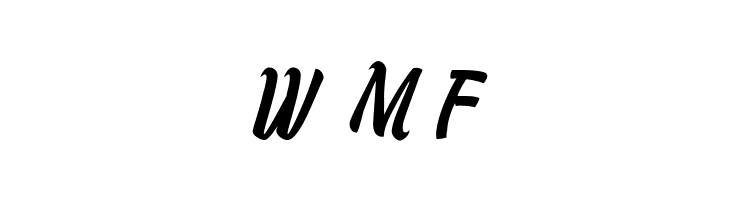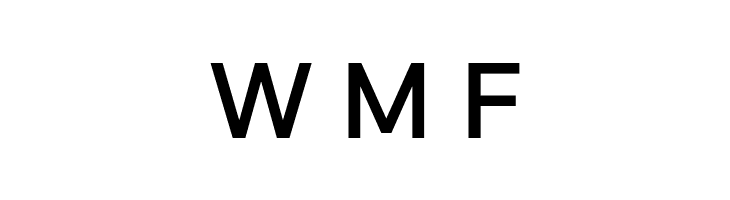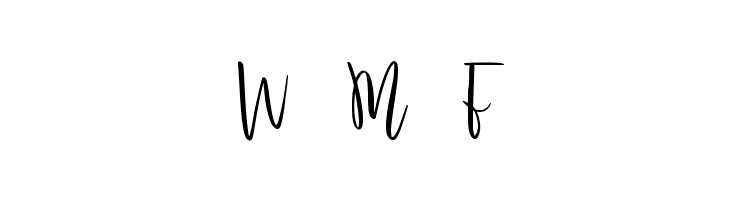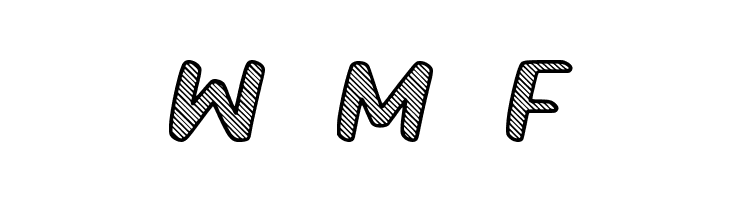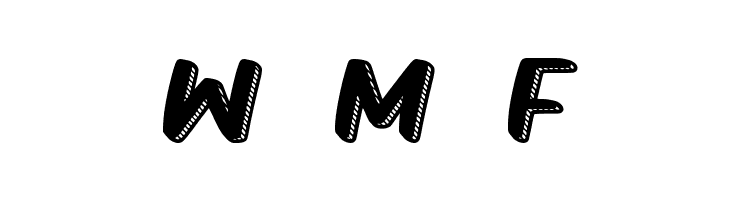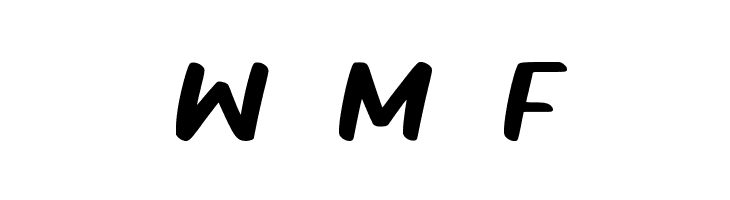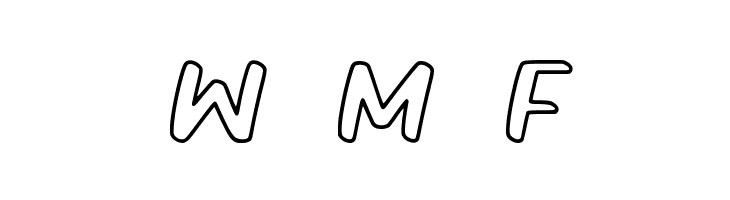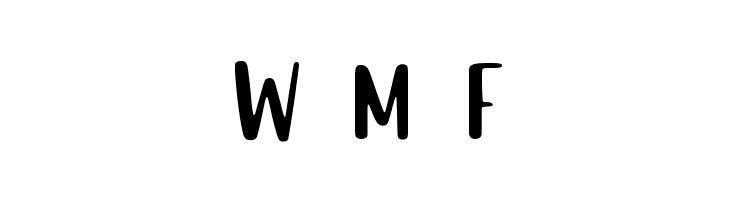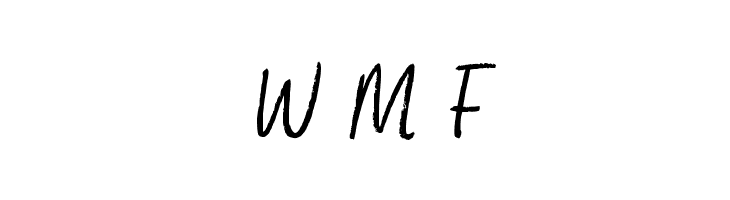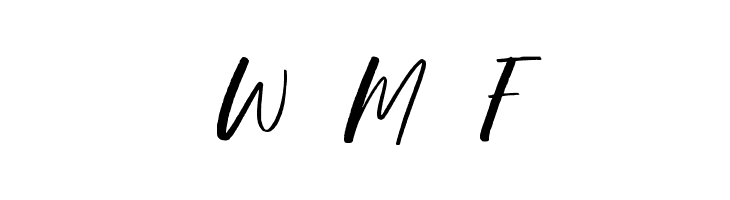
An elegant calligraphy font with flowing, interconnected strokes and ornate flourishes.
An elegant, cursive font with flowing, intricate strokes.
A bold, playful font with chunky, rounded characters.
A decorative and elegant script font with flowing, intricate letterforms.
A bold, angular font with a geometric and modern design.
A playful, decorative font with floral cutouts and bold, rounded characters.
A bold, dynamic script font with a strong, energetic presence.
A playful, handwritten font with flowing, cursive-like strokes and a modern aesthetic.
A playful, bold script font with a hand-drawn, whimsical style.
A bold, flowing script font with a lively, tropical vibe.
A playful, decorative script font with heart motifs and bold, flowing characters.
A classic serif font with elegant strokes and pronounced serifs.
A modern sans-serif font with geometric shapes and uniform strokes.
A modern, narrow typeface with clean lines and consistent stroke widths.
A modern, elegant cursive font with fluid connections and graceful curves.
A handwritten, cursive font with elegant, flowing strokes.
A playful and elegant handwritten script font.
A bold, brush-style font with a lively and informal appearance.
A bold, striped decorative font with a playful and dynamic style.
A bold, comic-inspired font with a dotted texture and playful style.
A playful, bold font with rounded, slightly slanted letterforms.
A playful, comic-style outline font with rounded, hand-drawn characters.
A bold, playful handwritten font with dynamic strokes.
A playful, hand-drawn font with tall, narrow letterforms and a whimsical style.
A playful handwritten font with smooth, rounded edges and a friendly appearance.
A playful, bold handwritten font with smooth curves and consistent height.
A playful, heart-embellished cursive font perfect for creative projects.
A casual, chalk-like handwritten font with a playful and dynamic style.
A bold, handwritten font with dynamic strokes and a modern, artistic flair.
A bold, handwritten-style font with dynamic and fluid strokes.
A flowing, elegant script font with a sophisticated, handwritten style.
A fluid and elegant handwritten font with smooth, flowing lines.
A playful, double-line font with a whimsical and lively appearance.
A bold, flowing script font with a lively handwritten style.